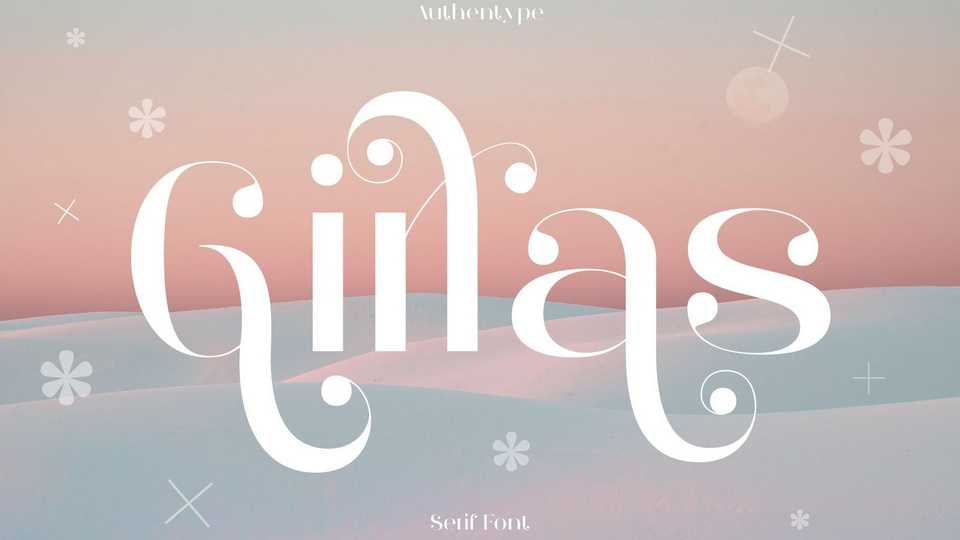
Girlas Elegant Serif Font › Fontesk – Download Grátis
Download Girlas font, a beautiful and elegant high contrast serif typeface. Girlas works well for beauty product branding because it contains a variety of letters and ligatures that add a feminine feel to your designs.
Designer: Authentype